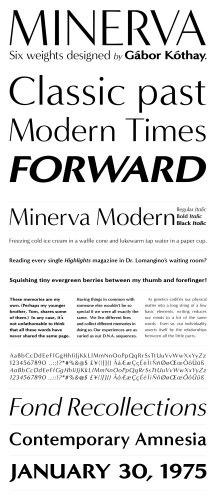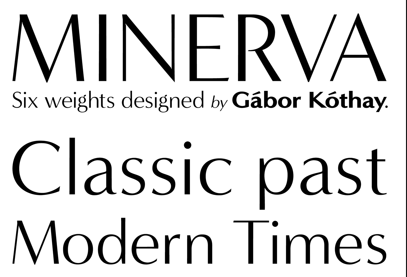
Minerva Modern Font Family
Where Minerva Modern Font Family works best
Minerva Modern Font Family gives long-form text a classic, trustworthy rhythm — ideal for magazine spreads, annual reports and book interiors.
Pair Minerva Modern Font Family with generous letter-spacing for wordmarks in fashion, hospitality, wine and jewellery branding.
Use Minerva Modern Font Family for slide titles in Keynote, PowerPoint or Google Slides to add authority without looking dated.
What is Minerva Modern Font Family good for?